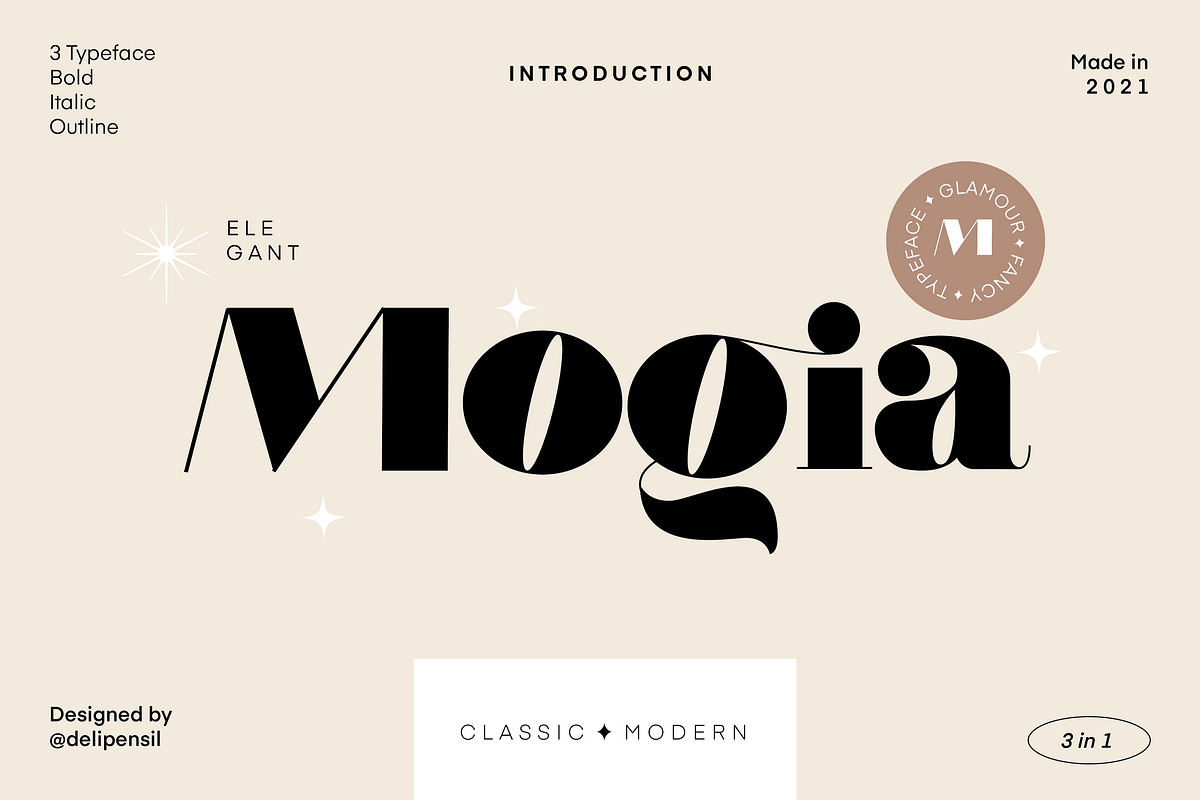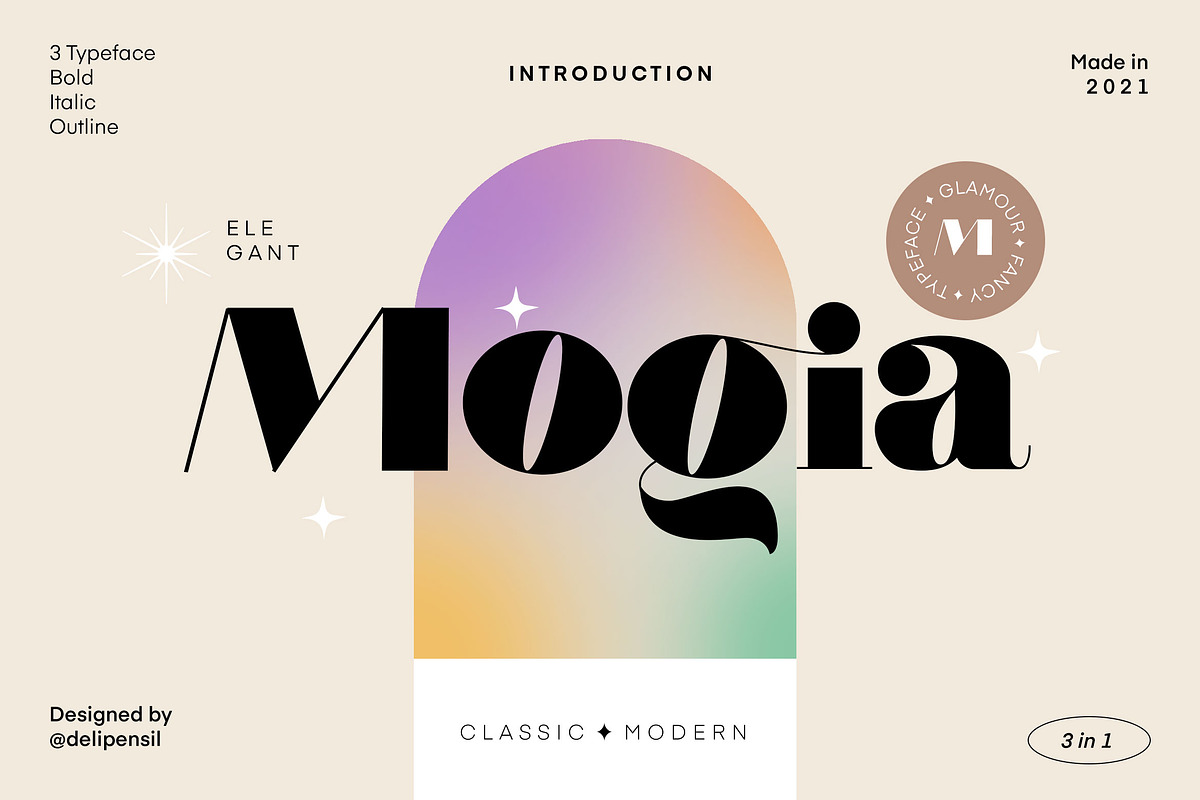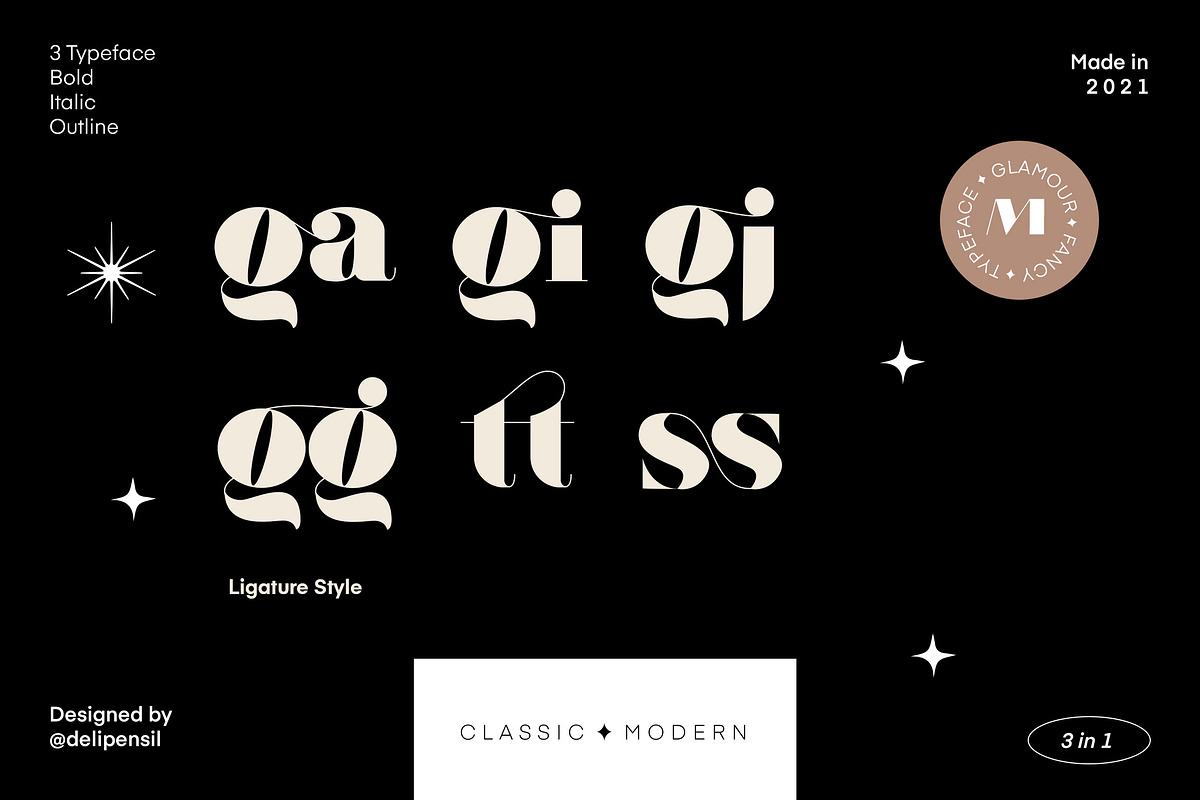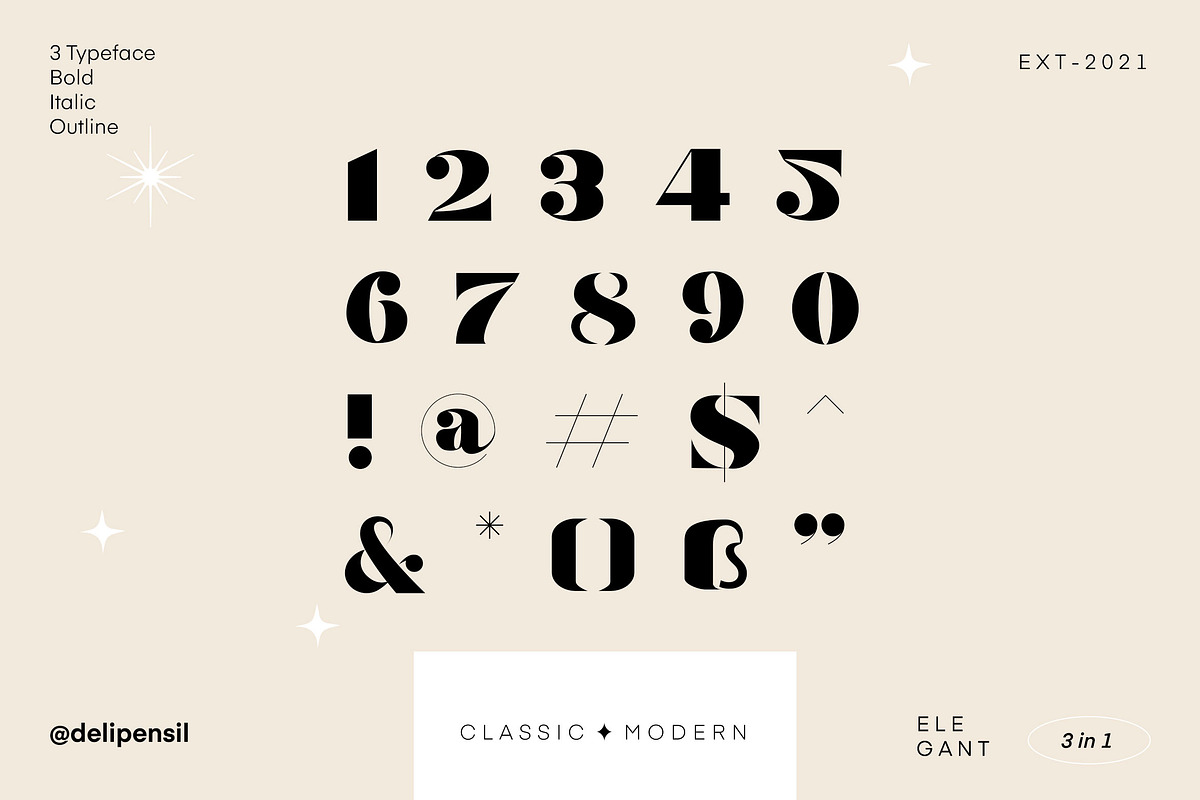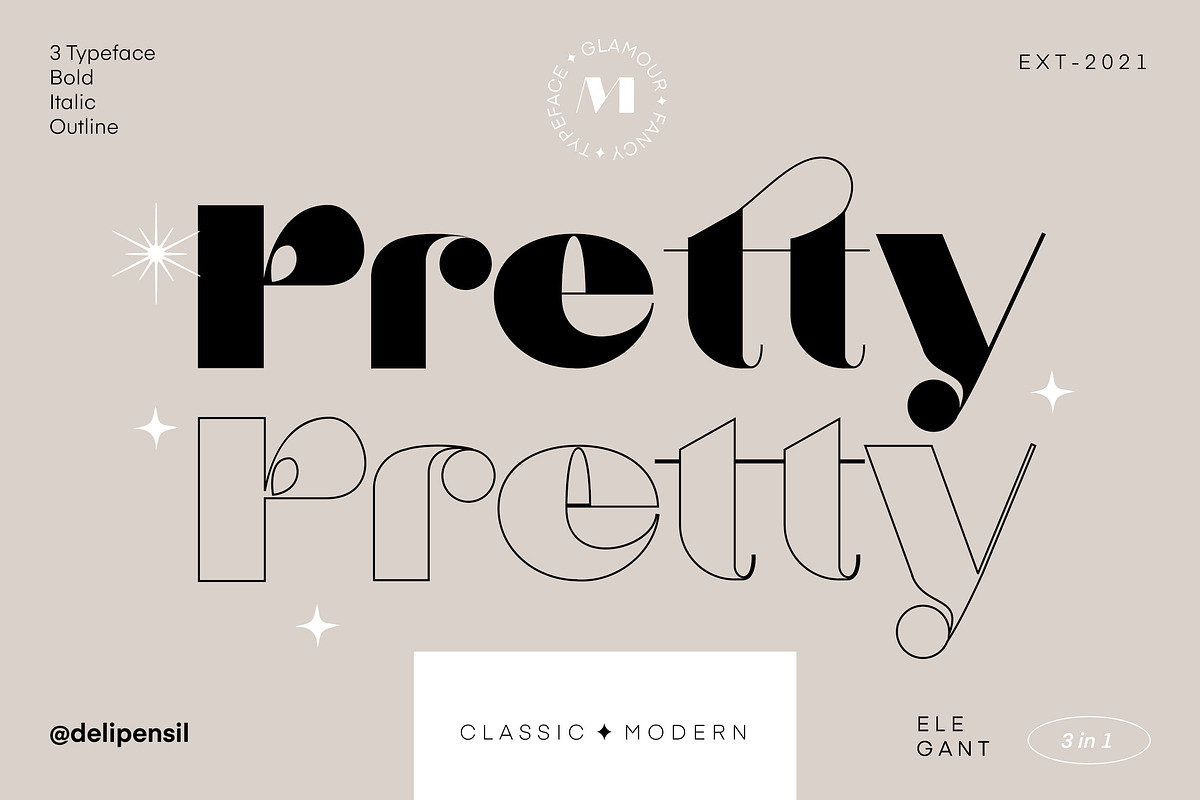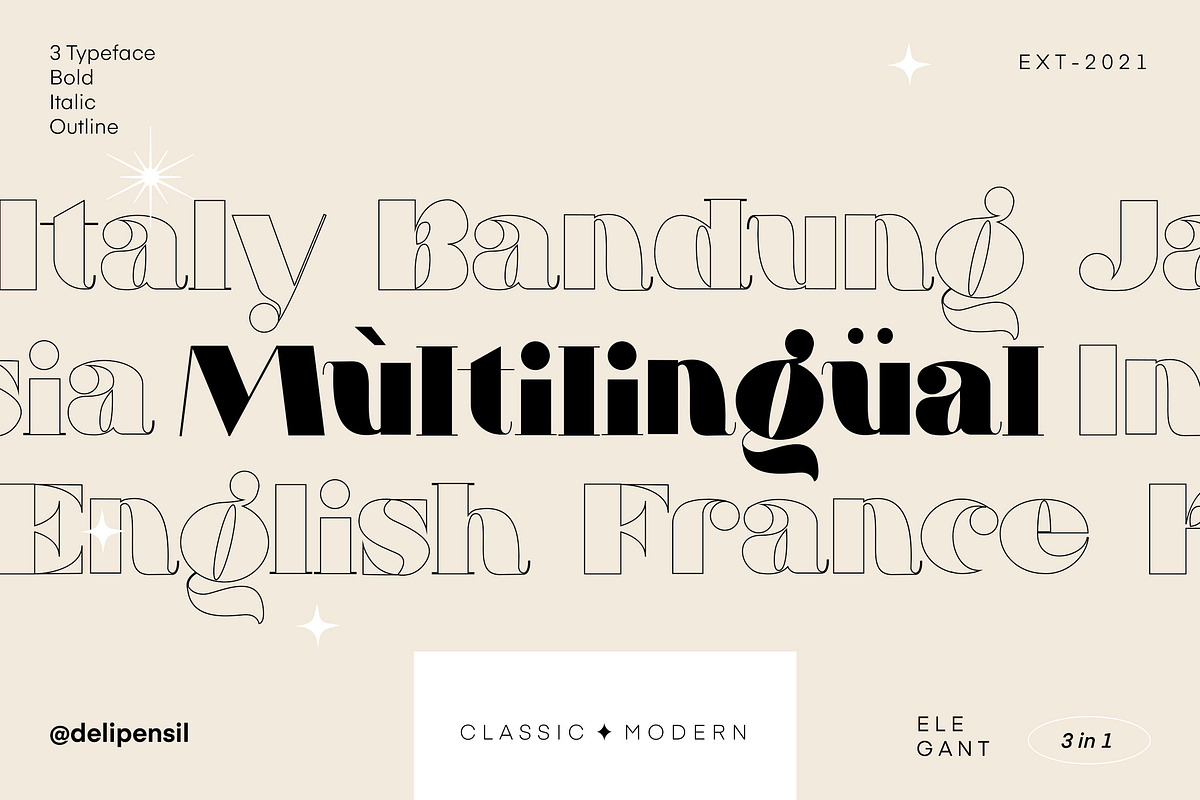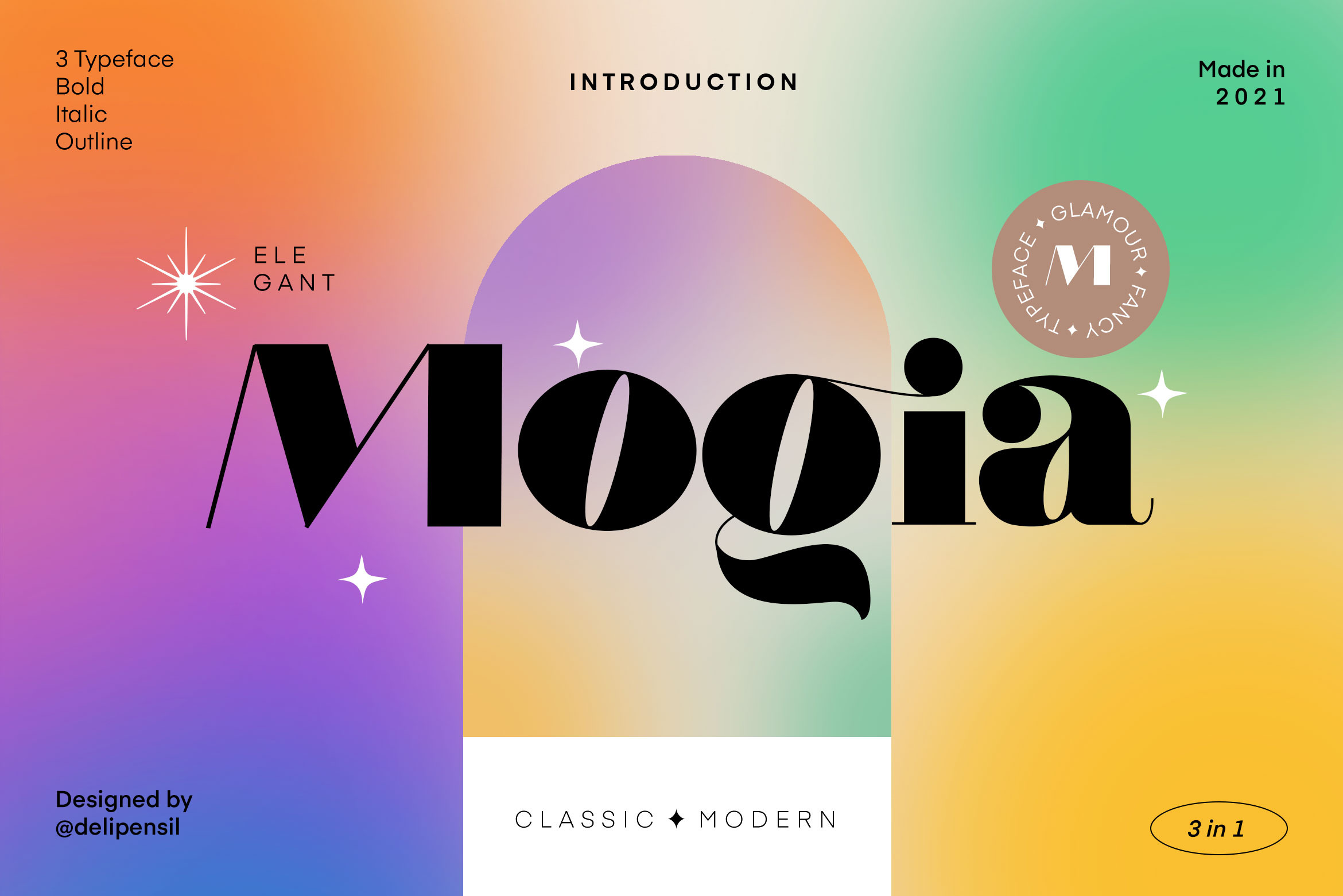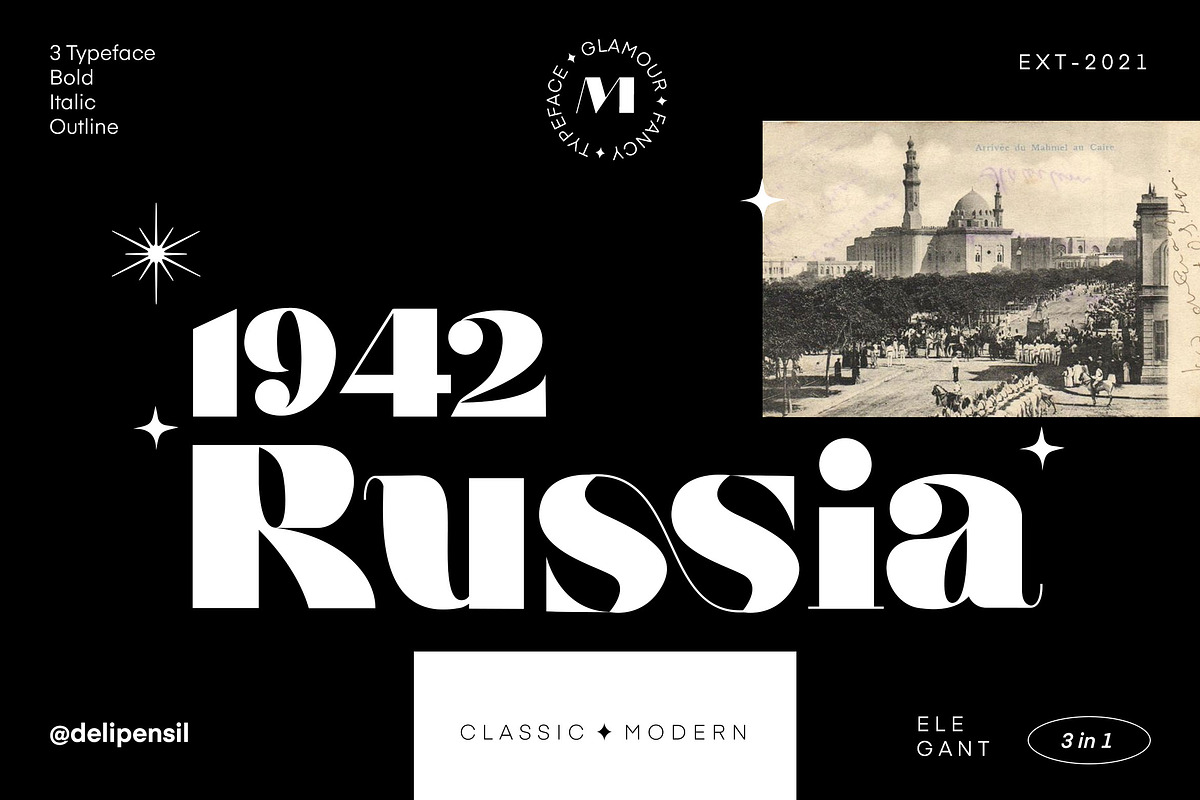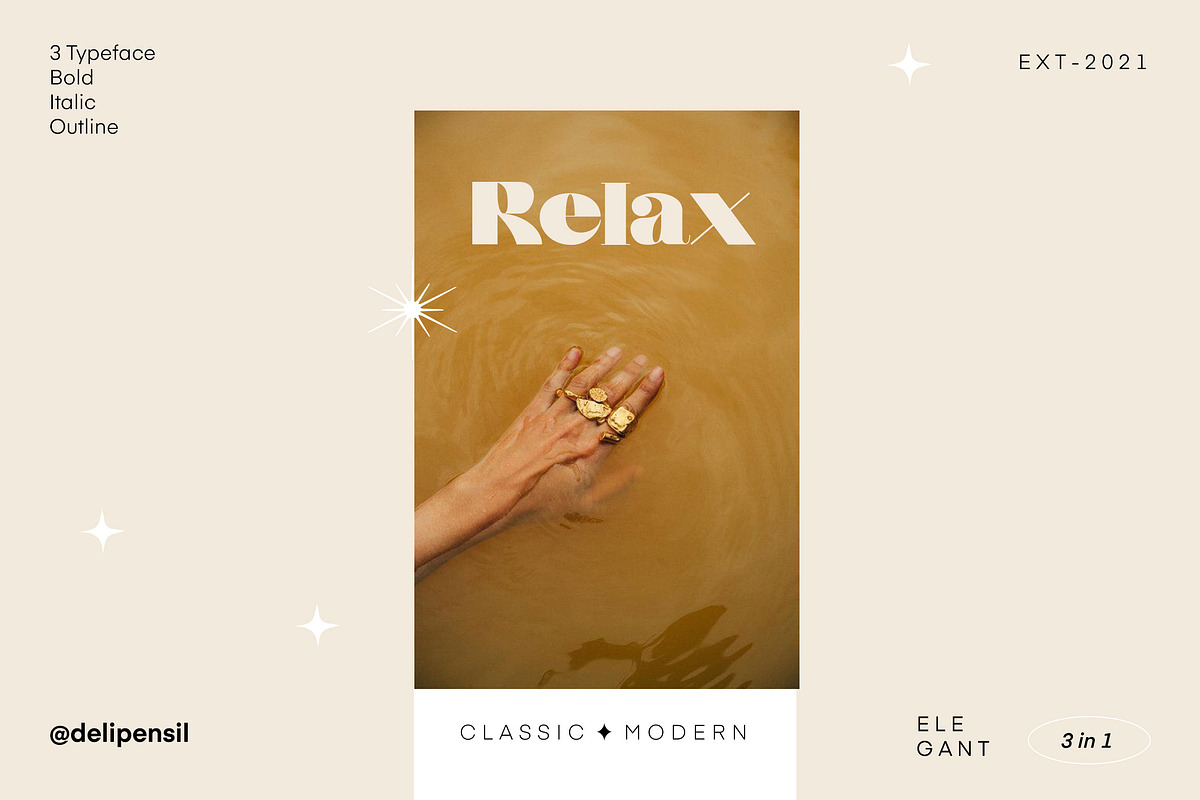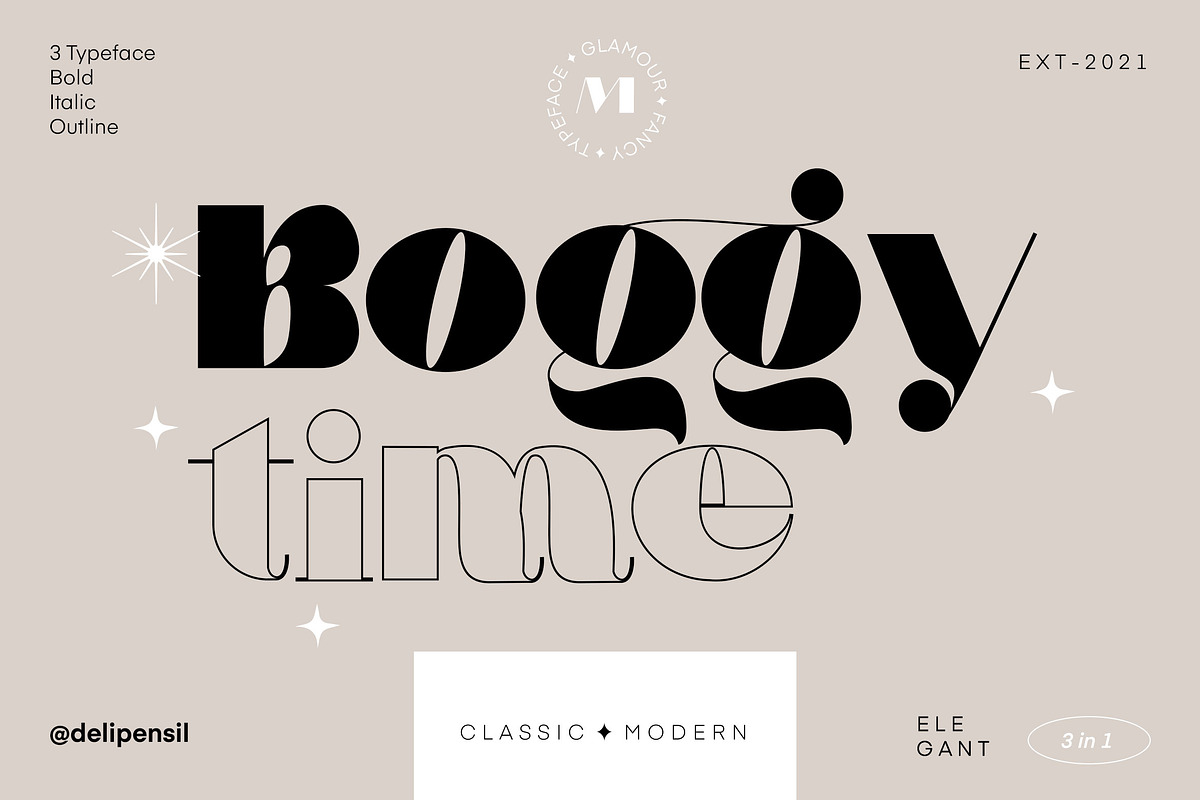
Mogia - Modern Classic Typeface
Bismillah, Introduction Mogia - Modern Classic Typeface 👑✨
Finally Release :D Beauty Serif font, clean and mindful , it combine in both, use this font for anything beauty place for your logo, headline, cover book, magazine and many more
- Mogia Font Style
- Mogia Numeral & Punctuation
- Mogia Kerning Style
- Mogia Ligature Style
- Mogia 3 Typeface